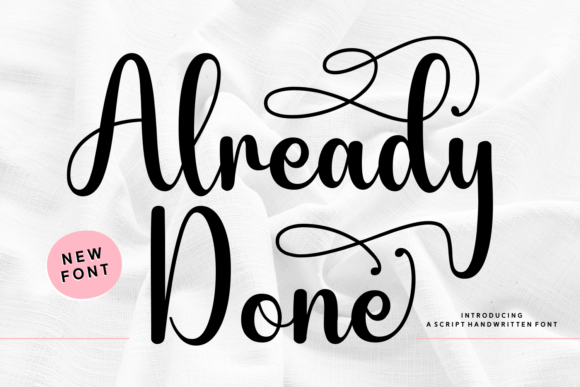
The Designer’s Dream: How Already Done Font Elevates Your Creative Projects
I still remember the countless hours I spent searching for the perfect font for a client’s wedding invitation. The design had to be elegant, sophisticated, and reflective of the couple’s personalities. As I scrolled through font after font, I knew I needed something special. That’s when I stumbled upon Already Done, a stylish and elegant script font that instantly caught my attention. In this article, I’ll share my experience with Already Done, its features, and how to make the most of it in your designs.
First Impressions: What I Love About Already Done
Already Done is more than just a font – it’s an experience. Here are a few things that make it stand out:
• ✨ Smooth curves and bold strokes: The font’s unique blend of smooth curves and bold strokes creates a refined handwritten aesthetic that’s perfect for branding, wedding invitations, and elegant logos.
• ✅ Flowing swashes and clean letterforms: The elegant swashes and clean letterforms exude charm and confidence, making your message unforgettable.
• 💫 Modern yet graceful feel: Already Done brings a modern yet graceful feel to any design, making it perfect for a wide range of creative projects.
The Honest Review: A Few Quirks to Consider
While Already Done is an exceptional font, there are a few quirks to consider:
• 🤔 Limited use in body text: Due to its elegant and cursive nature, Already Done might not be the best choice for body text. It’s better suited for headings, titles, and short paragraphs.
• ⚠️ Requires attention to spacing: As with any script font, Already Done requires attention to spacing to ensure it looks its best. Be prepared to adjust the tracking and kerning to achieve the desired effect.
The Designer Inspiration Behind Already Done
Already Done was inspired by the classic script fonts of the past, with a modern twist. The designer aimed to create a font that would bring a sense of elegance and sophistication to any design project. With its smooth curves and bold strokes, Already Done is the perfect choice for designers looking to add a touch of refinement to their work.
Q: What type of projects is Already Done best suited for?
A: Already Done is perfect for branding, wedding invitations, product packaging, elegant logos, and social media graphics.
Q: Can I use Already Done for body text?
A: While Already Done is an elegant font, it’s better suited for headings, titles, and short paragraphs. For body text, consider using a more readable font.
Q: Does Already Done support OpenType features?
A: Yes, Already Done supports OpenType features, including swashes, stylistic alternates, and glyphs. Experiment with these features to add more flair to your design.